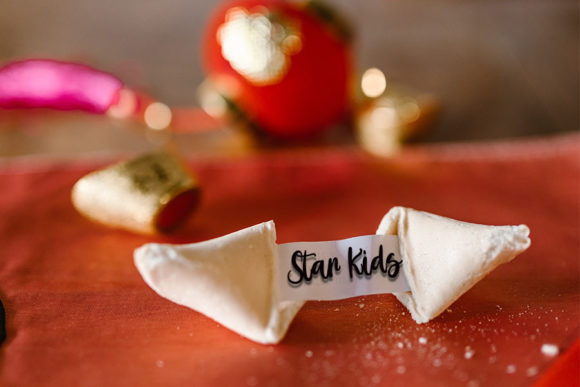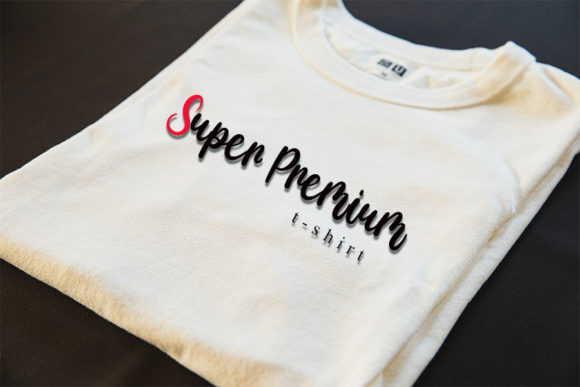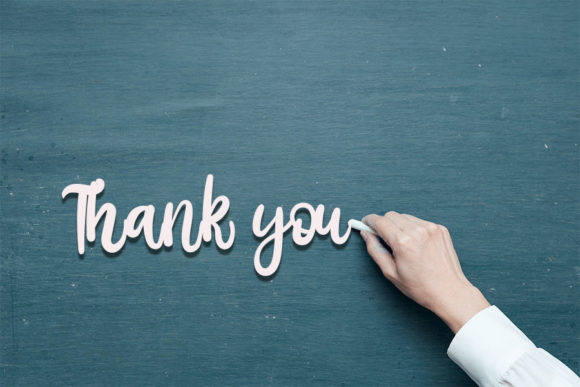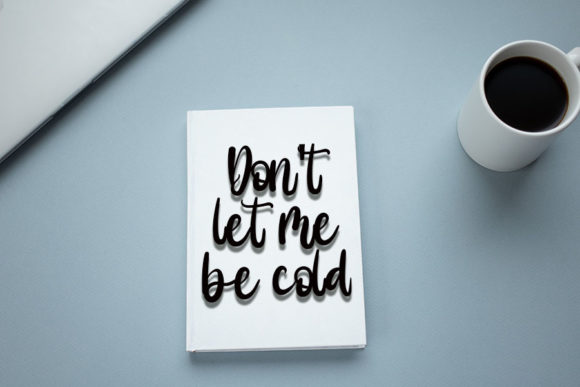
Cappucino Font
About Cappucino Font
Cappucino is a trendy and delicate lettered handwritten font. Whether you’re using it for crafting, digital designing, presentations or greeting cards making, it’s perfect!